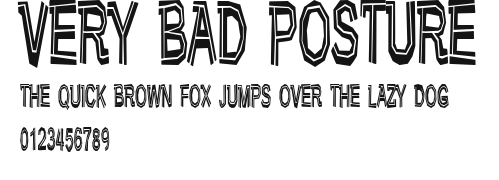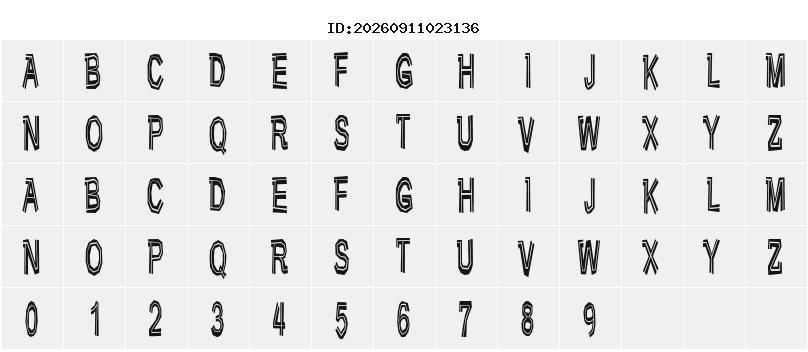
Very bad posture Preview
• Font Name: Very bad posture
• Font ID: JakobFischeratwww.pizzadude.dk: Very bad posture: 2002
• Full Font Name: Very bad posture
• Version: 2002; 1.0, initial release
• PostScript Name: Verybadposture
About Very bad posture.ttf
Very bad posture.ttf is a modern, elegant sans-serif font designed for ultimate readability and visual harmony. Perfect for branding, headlines, web design, and print materials.